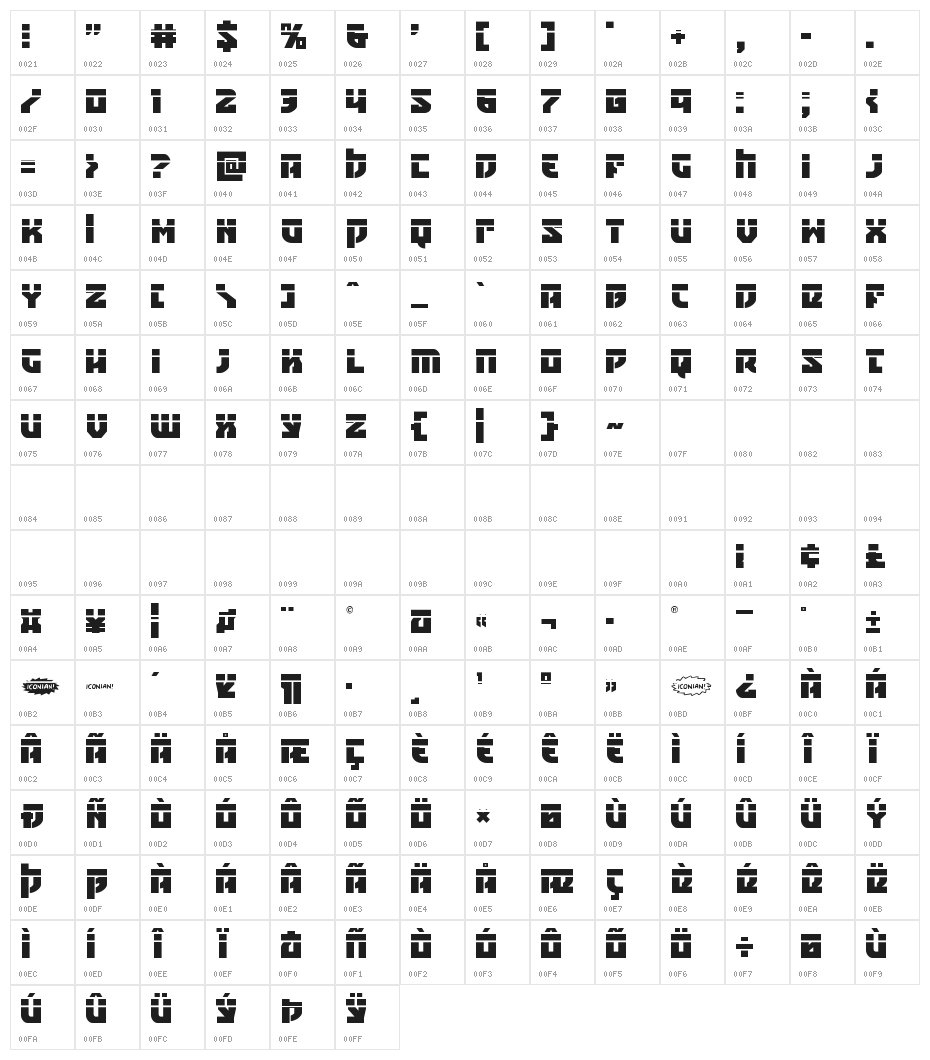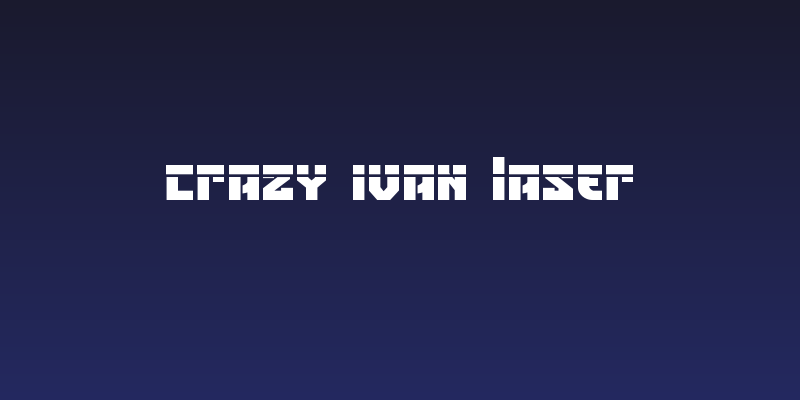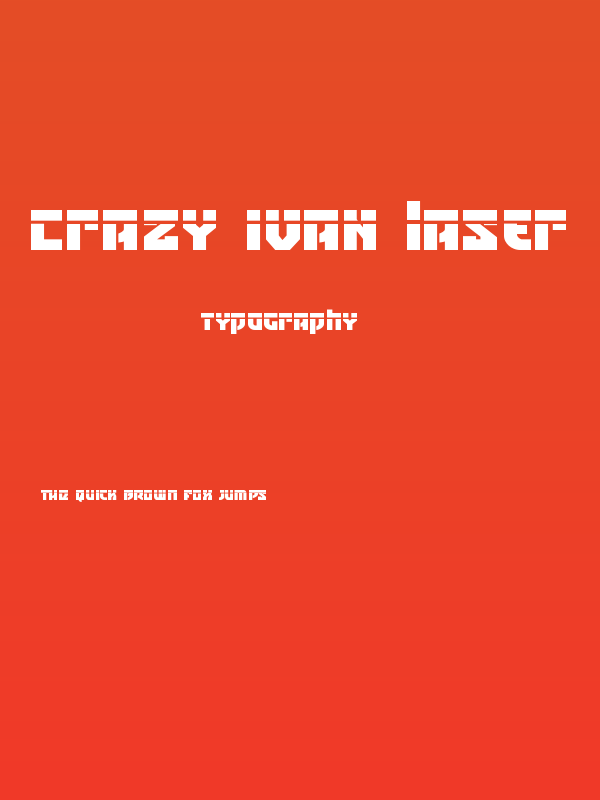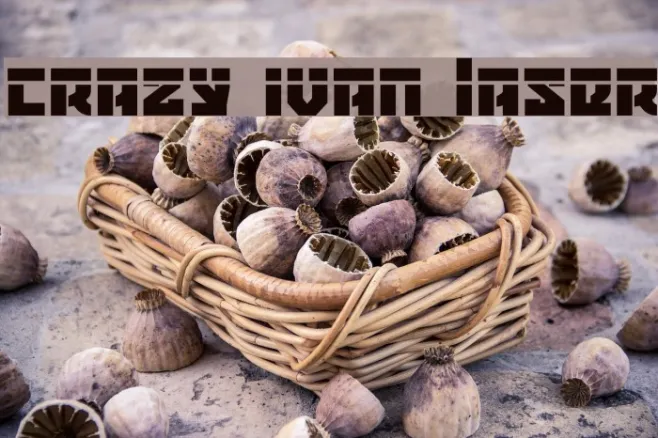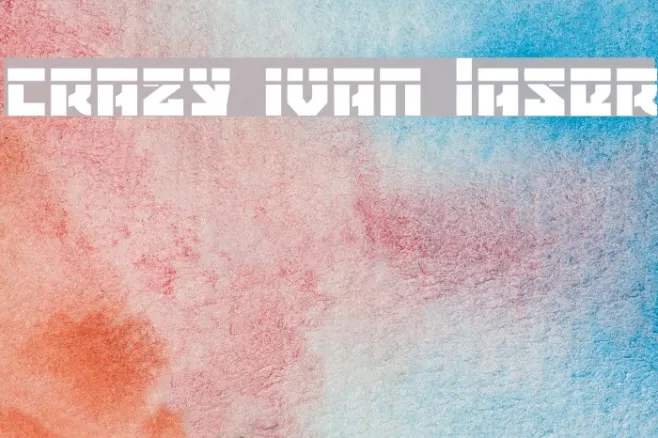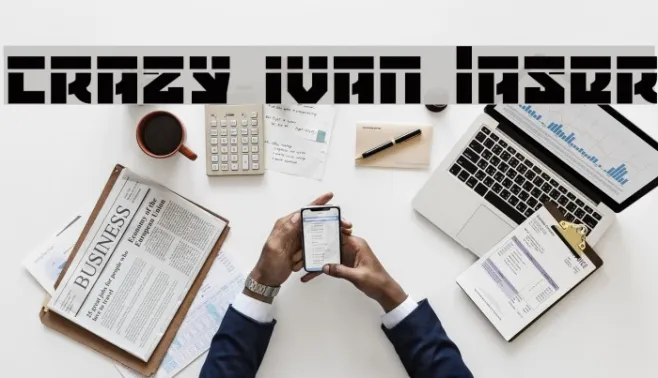
Crazy Ivan Laser Font
Crazy Ivan Laser Description
This font features a bold, geometric design with sharp angles and a futuristic aesthetic. Each character is constructed with blocky, angular shapes, giving it a distinct, industrial feel. The uppercase and lowercase letters maintain a consistent style, with minimal differentiation between them. Numbers and special characters follow the same design principles, ensuring uniformity across all glyphs. The font's heavy weight and strong presence make it ideal for impactful designs. Its unique style is reminiscent of digital or sci-fi themes, making it suitable for projects that require a modern and edgy look.
| Proposed Projects | Ideal for sci-fi themed posters, video game titles, technology branding, and futuristic event flyers. |